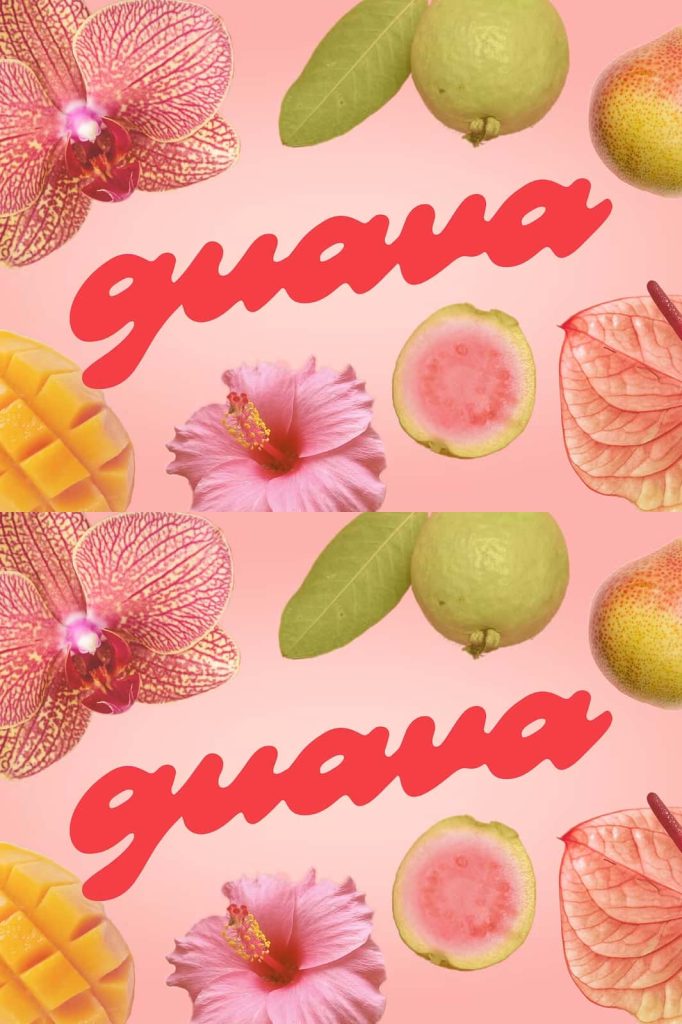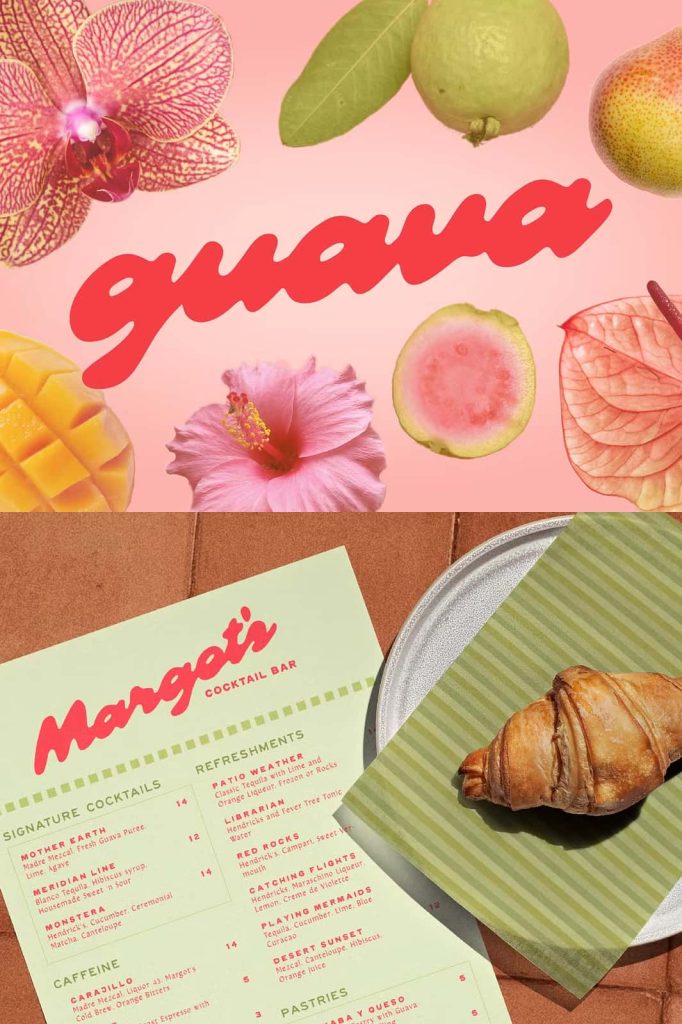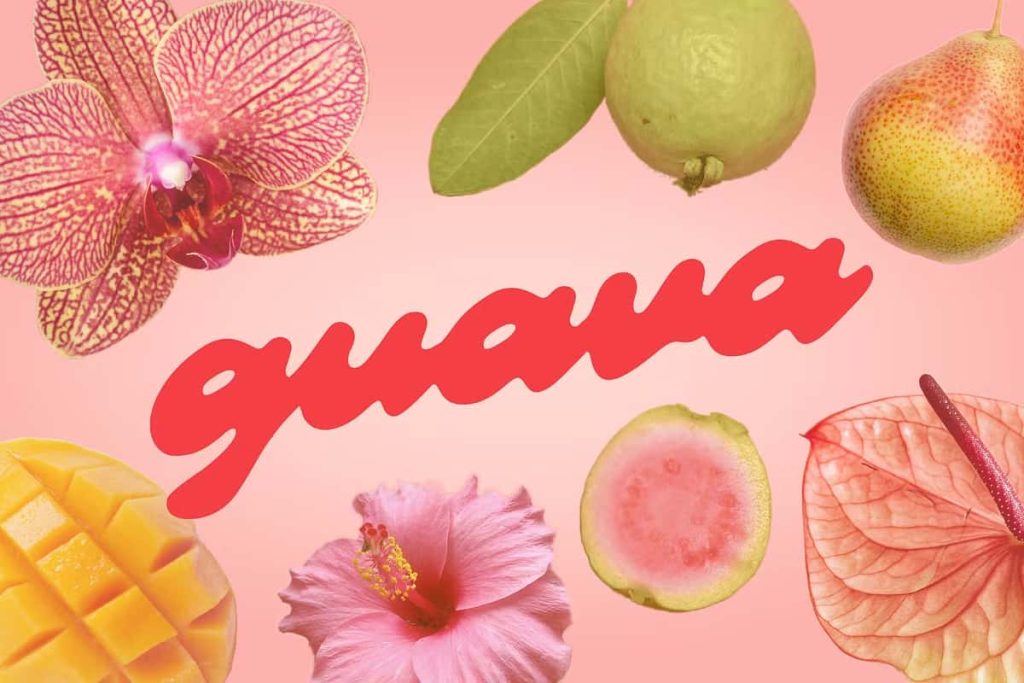
In 2023, I visited Mexico City for the first time. Guava quickly became the defining flavor and smell by which I remember the trip by. And this typeface is the visual embodiment of the beauty of guava.